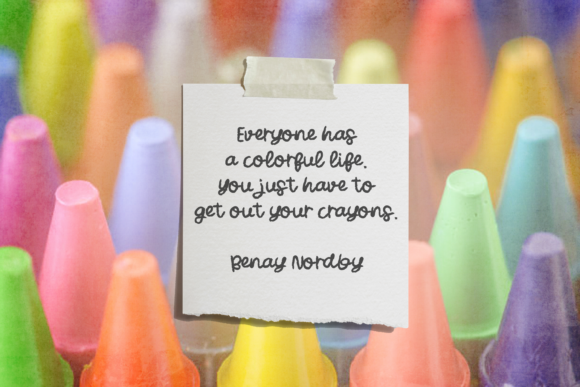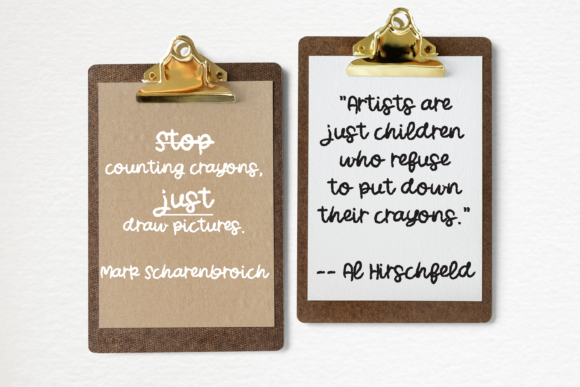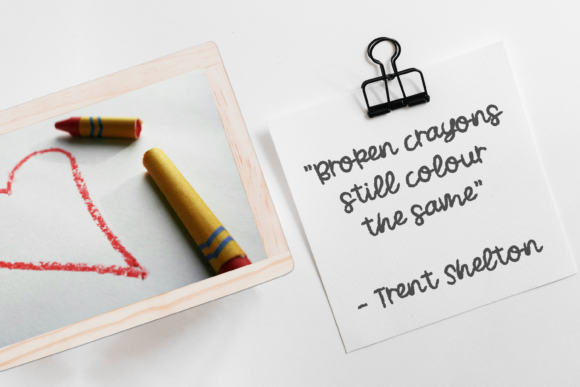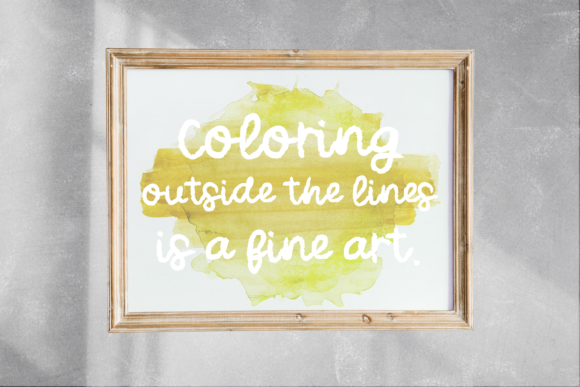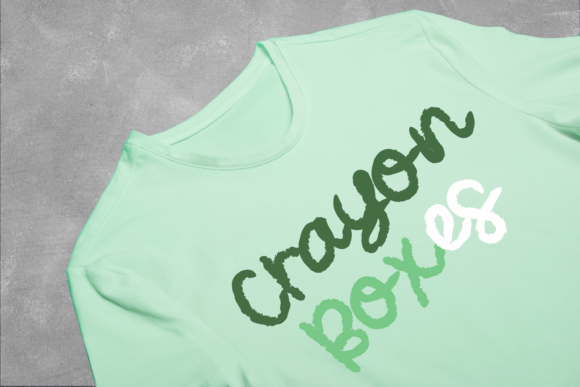
Crayon Box Font: A Sweet and Friendly Handwritten Delight
Are you a designer, crafter, or DIY enthusiast looking for a font that can add a touch of whimsy and playfulness to your projects? Look no further than the Crayon Box Font! This sweet and friendly handwritten font is perfect for a wide range of designs, from kid-friendly crafts to creative branding and marketing materials.
The Crayon Box Font: A Unique and Natural Style
Crayon Box is a one-of-a-kind handwritten font that boasts a natural and unique style. Its irregularities and quirks give it a charming, hand-crafted feel that’s reminiscent of childhood creativity and imagination. The font’s friendly and approachable demeanor makes it perfect for designs that require a personal touch, such as:
• Kid-friendly crafts and activities
• DIY projects and tutorials
• Branding and marketing materials for family-friendly businesses
• Stationery and greeting cards
• Signs and posters
What Makes Crayon Box Font So Versatile?
The Crayon Box Font is incredibly versatile, making it suitable for a wide range of designs and applications. Its natural and unique style allows it to blend seamlessly with various design aesthetics, from rustic and vintage to modern and playful. Whether you’re creating a logo, brochure, or social media graphic, Crayon Box Font is sure to add a touch of personality and charm to your design.
Key Features of Crayon Box Font
Here are some key features that make Crayon Box Font a standout choice for designers and crafters:
• Handwritten style: Crayon Box Font boasts a genuine handwritten style that’s full of character and personality.
• Natural and unique: The font’s irregularities and quirks give it a charming, one-of-a-kind feel.
• Versatile: Crayon Box Font is suitable for a wide range of designs and applications.
• Easy to read: Despite its playful style, Crayon Box Font is easy to read and understand.
How to Use Crayon Box Font in Your Designs
Using Crayon Box Font in your designs is easy! Here are some tips to get you started:
• Pair it with bold fonts: Combine Crayon Box Font with bold, sans-serif fonts for a striking contrast.
• Add colorful graphics: Enhance your design with colorful graphics and illustrations that match the playful style of Crayon Box Font.
• Experiment with sizes: Play around with different font sizes to create visual interest and hierarchy in your design.
Crayon Box Font: The Perfect Choice for Designers and Crafters
In conclusion, Crayon Box Font is a sweet and friendly handwritten font that’s perfect for designers, crafters, and DIY enthusiasts. Its natural and unique style makes it incredibly versatile, and its easy-to-read design ensures that your message gets across. Whether you’re creating kid-friendly crafts or professional branding materials, Crayon Box Font is sure to add a touch of whimsy and personality to your designs.